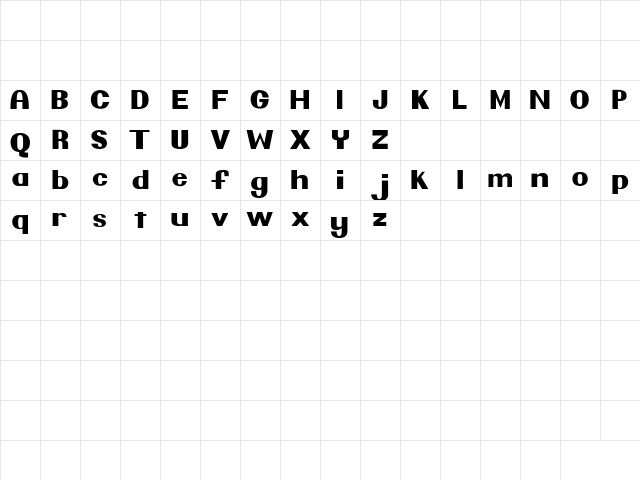
Pretendo Regular
Foundry: High-Logic
Designer: High-Logic - Erwin Denissen 1999
Design Context for Pretendo
Pretendo is a composed and adaptable typeface that performs quietly and consistently across a wide range of design contexts.